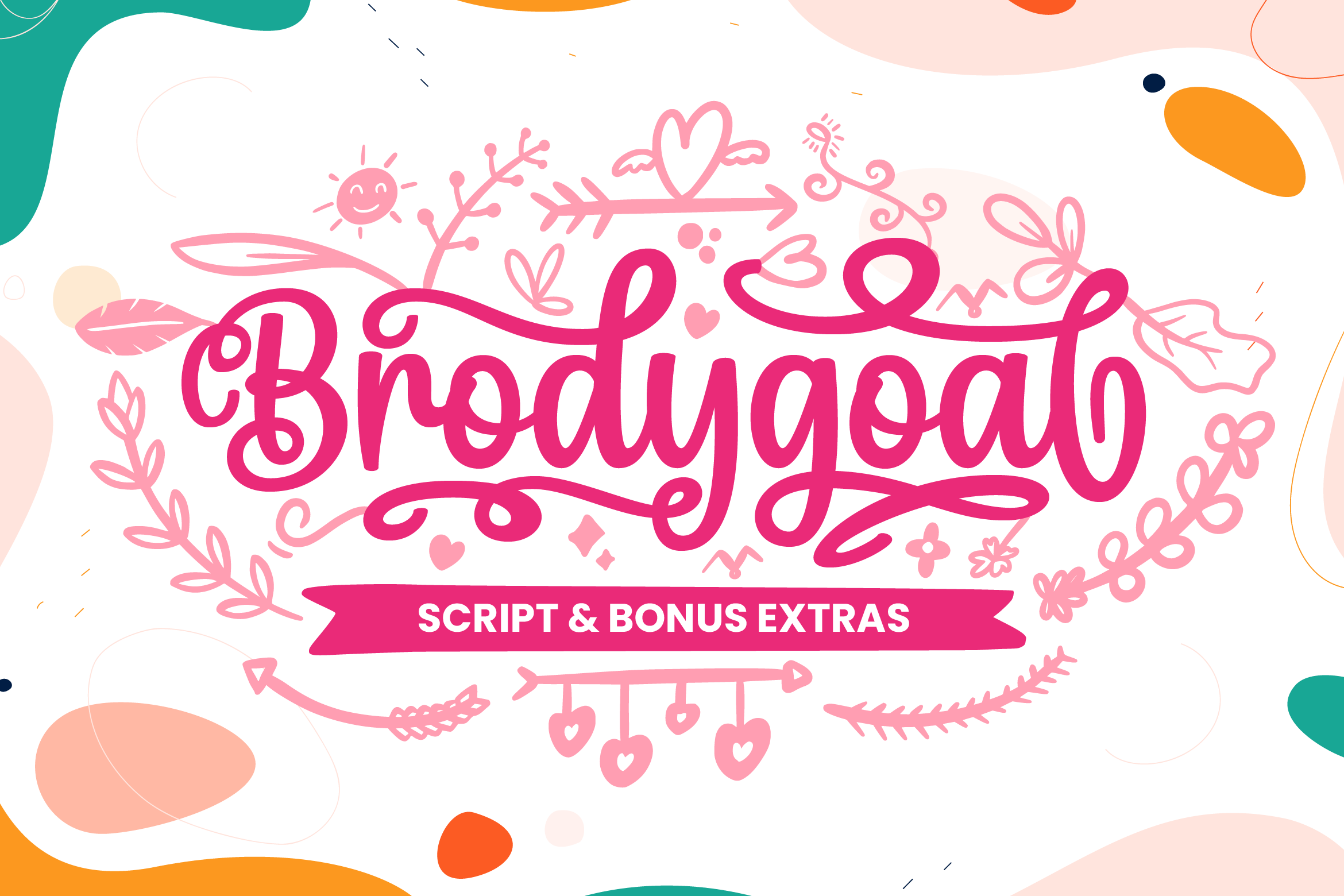
Brodygoal - Elegant And Flowing Handwritten Font
About Brodygoal - Elegant And Flowing Handwritten
Brodygoal is a delicate, elegant and flowing handwritten font. It has beautiful and well balanced characters and as a result, it matches a wide pool of designs.